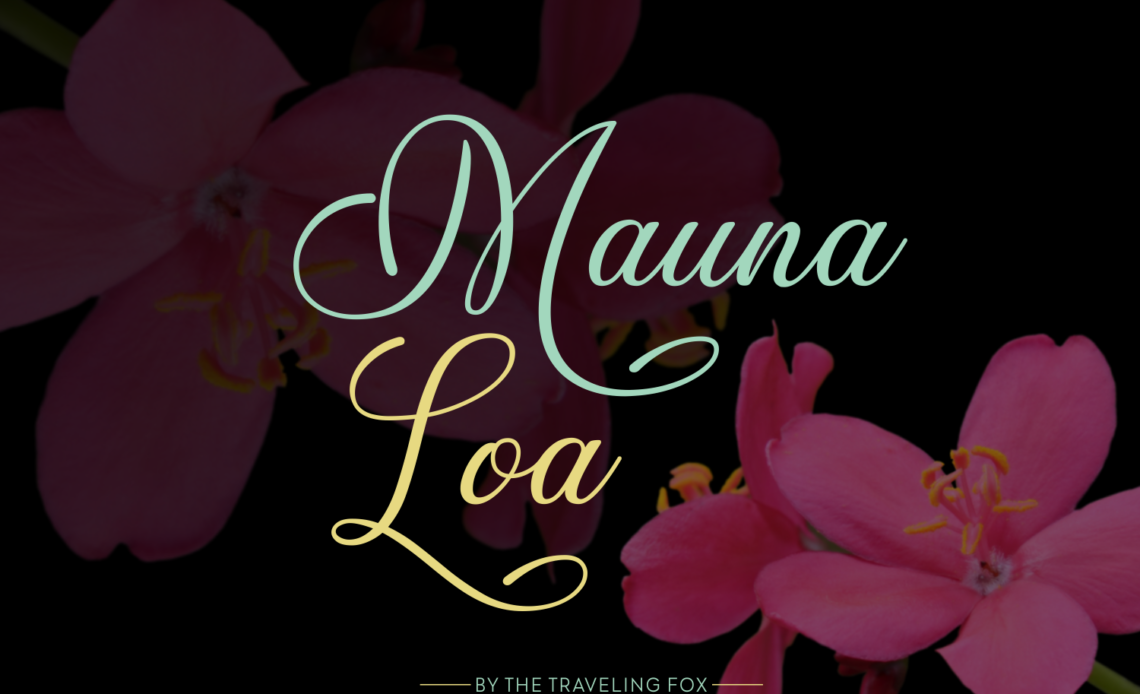
Immerse yourself in the world of Mauna Loa, a captivating script font that will elevate your designs to new heights. Crafted with meticulous care by The Traveling Fox, Mauna Loa boasts an elegant handwritten style that dances across your screen, leaving a trail of beauty in its wake.
Unleash the power of Mauna Loa's graceful curves and sweeping strokes, perfect for adding a touch of sophistication to your wedding invitations, stationery, or any craft project that calls for a personal touch. Its timeless charm transforms ordinary words into heartfelt messages, echoing the essence of handwritten letters.
But Mauna Loa's versatility extends far beyond traditional applications. Embark on a creative adventure, using it as a signature font to make your mark on the digital world. Let your words dance across social media posts, captivating your audience with a style that is uniquely yours.
Or, let Mauna Loa take center stage as the star of your headlines, commanding attention with its bold presence. Its unique character shines through, adding a touch of intrigue and personality to any marketing campaign or web design.
With Mauna Loa, the possibilities are endless. Whether you're a seasoned designer or just starting your creative journey, this font will become your trusted companion, adding a touch of elegance and charm to all your endeavors. Embrace the beauty of Mauna Loa and watch your designs come alive with grace and sophistication.